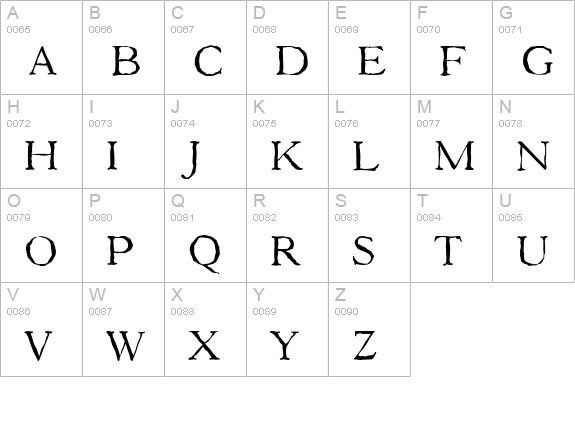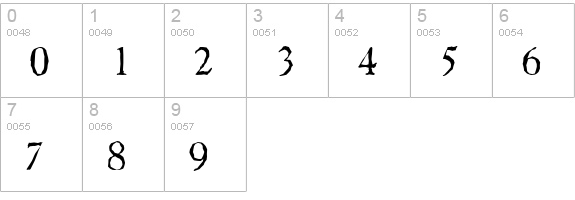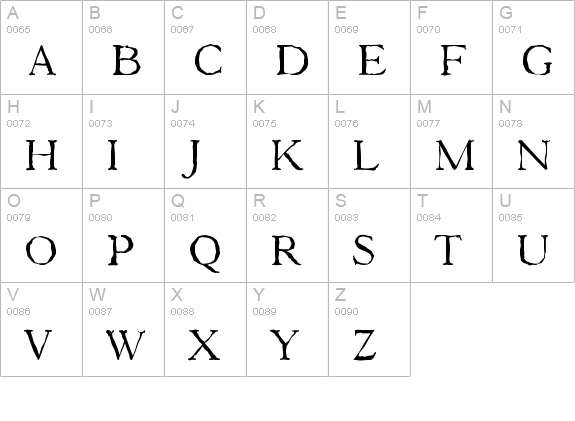
GascogneAntique-Light-Regular is a refined, elegant variant in the GascogneAntique typeface family \xE2\x80\x94 well suited to elegant body text, refined sub-headings, and luxury branding.
GascogneAntique-Light-Regular is a timeless and elegant font that exudes sophistication and charm. With its delicate serifs and classic letterforms, this typeface is perfect for adding a touch of vintage flair to your design projects. Whether you're working on invitations, branding, or editorial layouts, GascogneAntique-Light-Regular will bring a sense of refinement to any composition. Best of all, this exquisite font is available for free download at FontsMarket.com. You can easily incorporate GascogneAntique-Light-Regular into your creative endeavors without any cost, making it a valuable resource for designers and typographers alike. Don't miss out on the opportunity to enhance your projects with the beauty and grace of GascogneAntique-Light-Regular – download it today and elevate your designs to new heights.